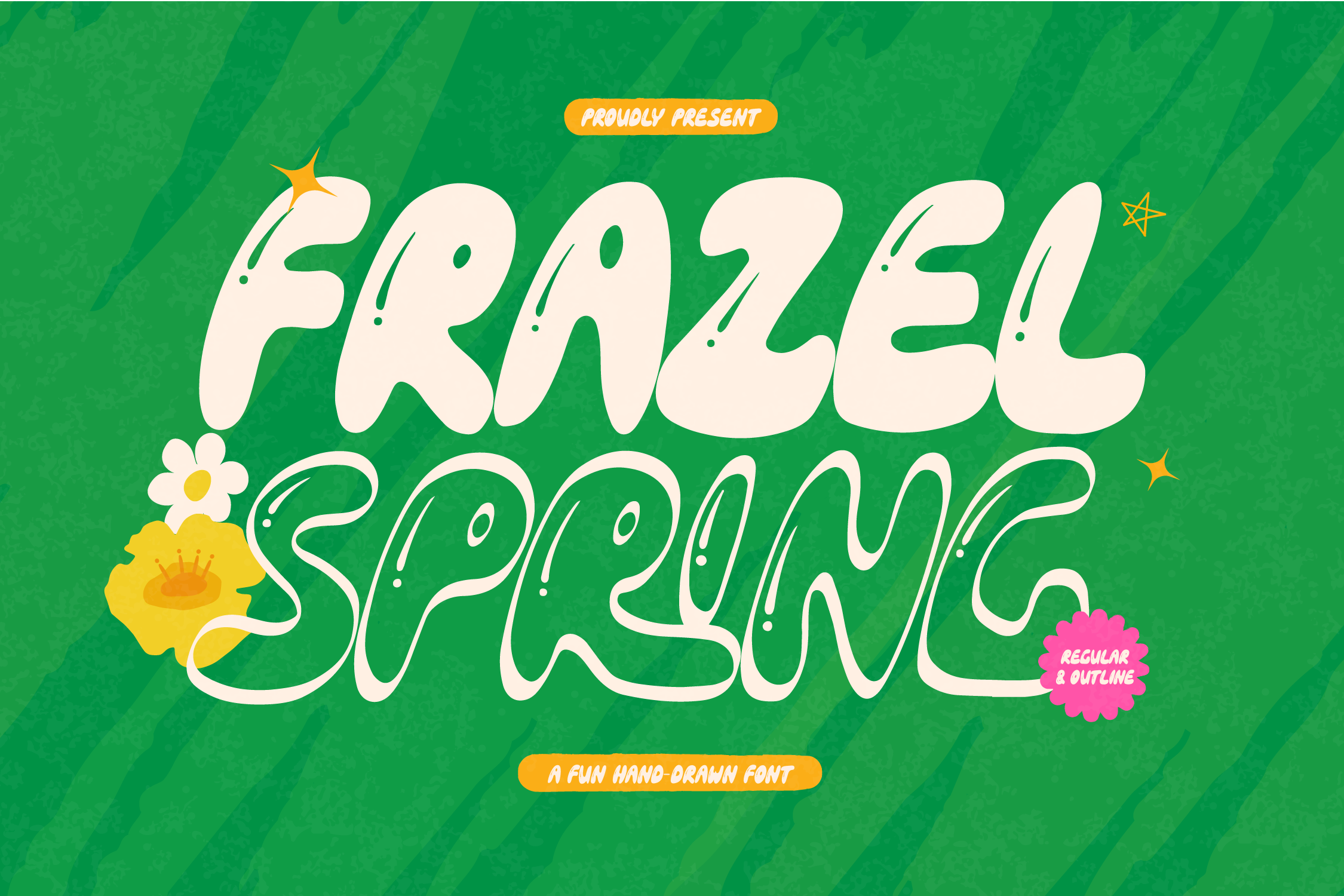
Frazel Spring | Fun Hand Drawn Font
Frazel Spring | Fun Hand Drawn Font, from Gracetypestudio, suitable for any projects such as: logos, branding projects, homeware designs, product packaging, mugs, quotes, posters, shopping bags, t-shirts, book covers, name card, invitation cards, greeting cards, label, photography, watermark, special events, and all your other lovely projects that need a Fun Hand Drawn Font taste.